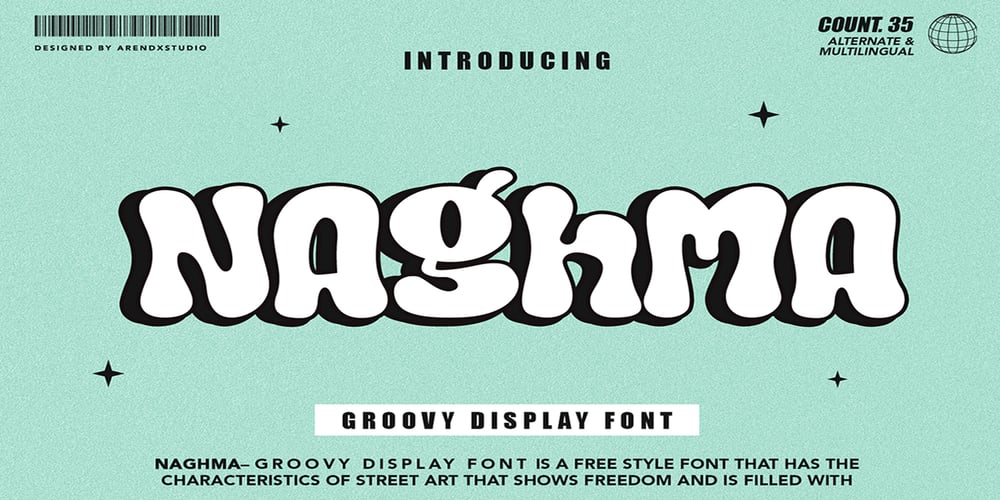
Naghma Font Family was designed by Asep Rendi and published by Arendxstudio. Naghma contains 2 styles and family package options. Naghma – Groovy Display Font is a free style font that has the characteristics of street art that shows freedom and is filled with unique charactersFeatures : • Character Set A-Z • Numerals & Punctuations (OpenType Standard) • Accents (Multilingual characters) Outline